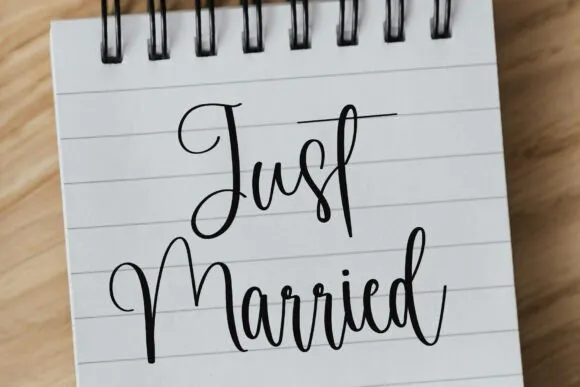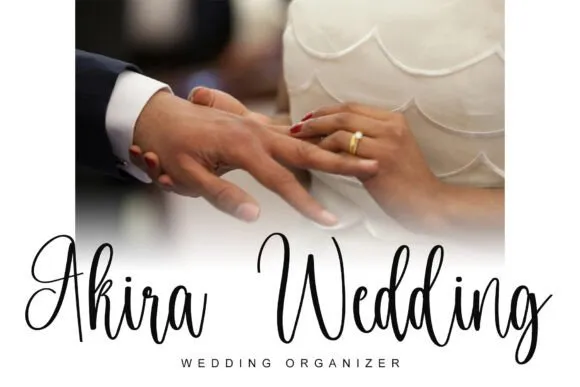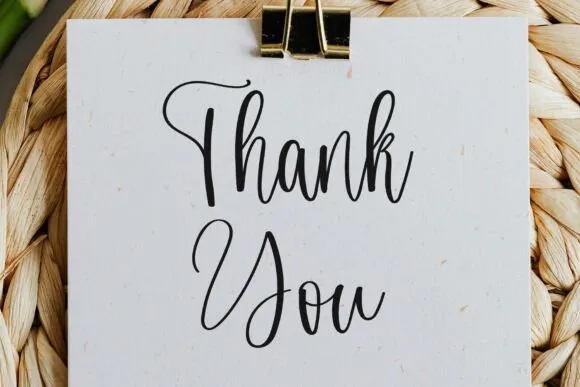
Free Mistery Daddy Font
Mistery Daddy Font is a sweet and cursive written by hand text style. This delicate text style will look perfect on an assortment of plan thoughts.
It will add an upbeat and heartfelt touch to every one of your ventures!
Impeccably fit for marking, logo, wedding things, welcoming cards, style, lookbook, showcasing advancement, whenever you need to look extravagant rich yet easygoing.